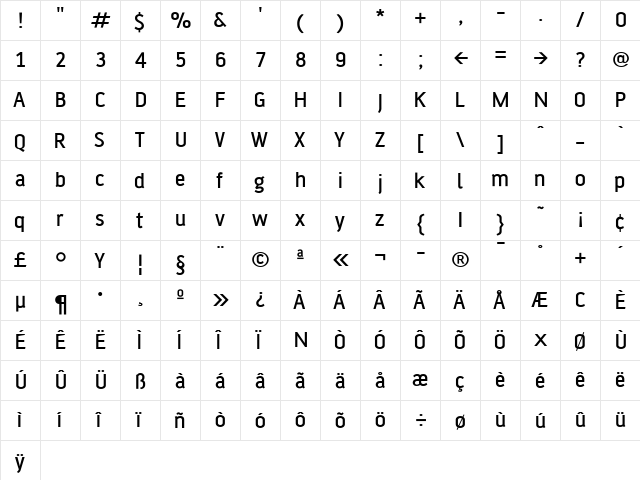
AFBattersea Medium
Design Context for AFBattersea Typeface
AFBattersea offers clean, dependable letterforms without strong stylistic allegiance, making it a practical choice for designers who need flexibility.
Pro Tip: Use AFBattersea in both headline and body roles to test its range before committing to a single application.